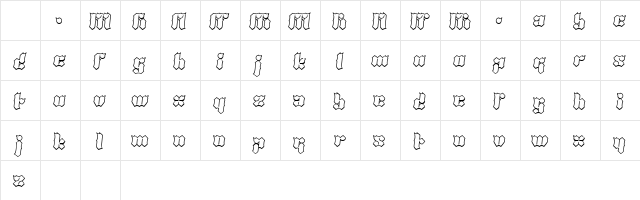
Molotov Regular Font Preview
Molotov Regular
Design Context for Molotov Typeface
Molotov is a composed and adaptable typeface that performs quietly and consistently across a wide range of design contexts.